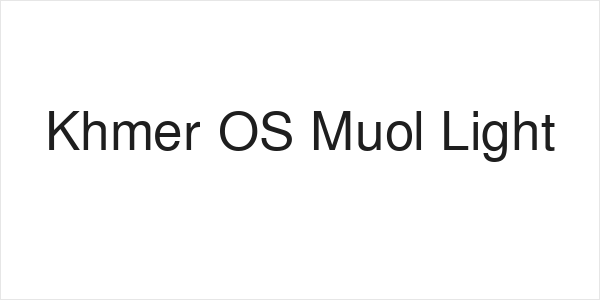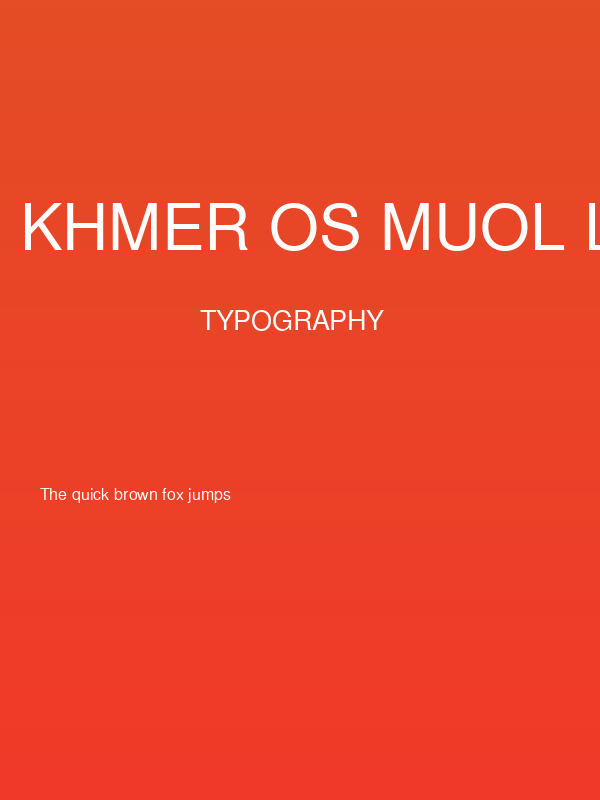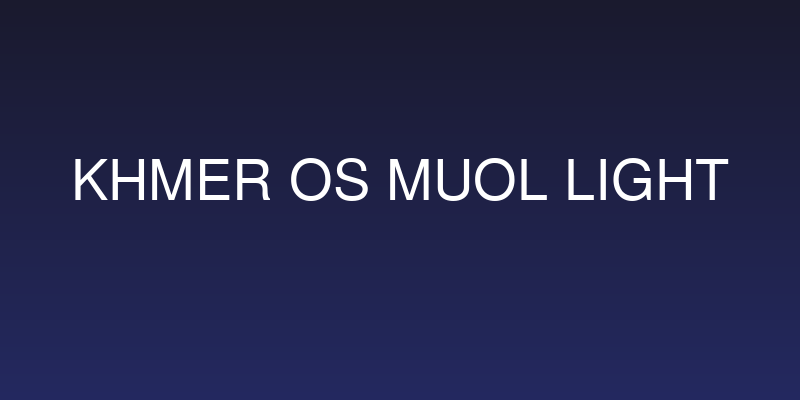
Khmer OS Muol Light Font
Khmer OS Muol Light Description
This font features a clean and modern sans-serif design with a uniform stroke width that gives it a sleek and professional appearance. The characters are well-proportioned, with a slightly condensed structure that enhances readability while maintaining a contemporary aesthetic. The uppercase letters are bold and assertive, while the lowercase letters offer a softer, more approachable feel. The numerals are clear and distinct, making them ideal for data presentation. Special characters are crafted with precision, ensuring they integrate seamlessly with the rest of the typeface. Overall, this font is versatile and suitable for a wide range of applications.